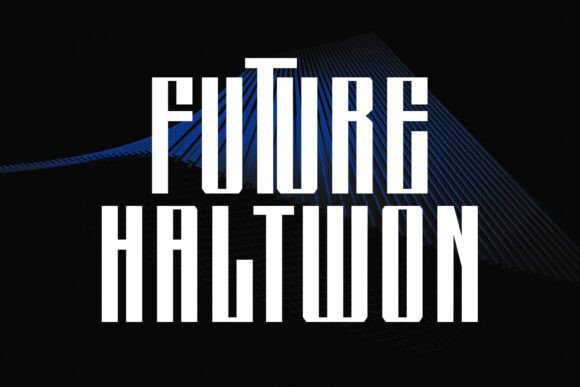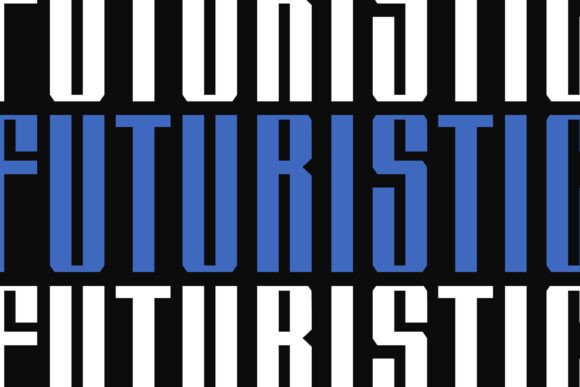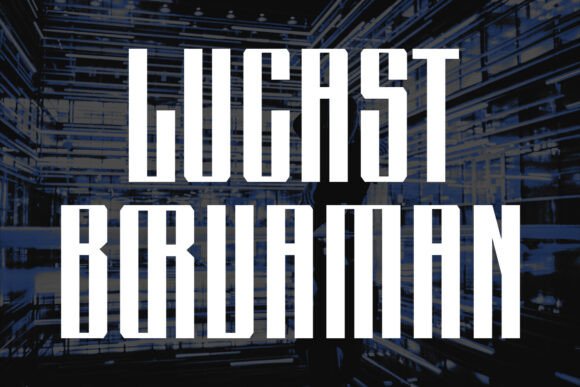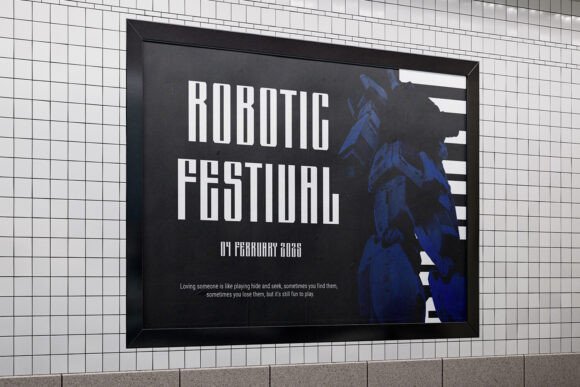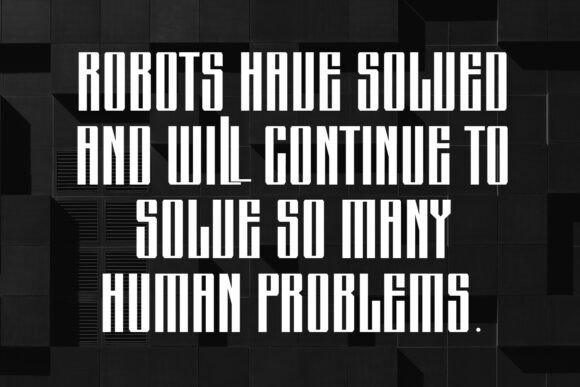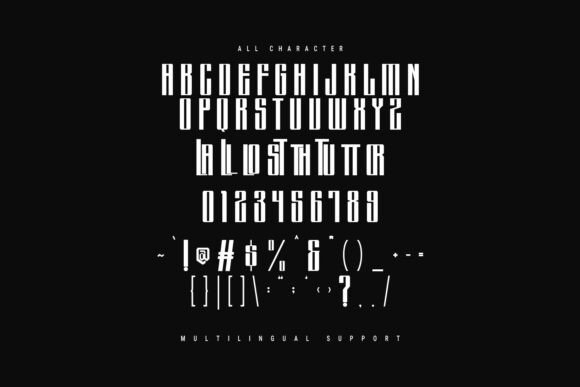
Introduction to Lockamor Font
As a designer, have you ever found yourself stuck on a project, searching for that one font that will elevate your design and make it truly stand out? I know I have. The moment of inspiration comes when you stumble upon a font that perfectly captures the essence of your creative vision. For me, that moment arrived when I discovered the Lockamor Font – a bold, futuristic display font that’s about to revolutionize the way we design.
With its sleek, modern aesthetic and geometric structure, Lockamor Font is the ultimate design resource for any creative project. Whether you’re working on a sci-fi project, tech branding, gaming designs, or high-impact logos, this font delivers a strong and commanding presence that’s hard to ignore. And the best part? It’s available for free download, making it an accessible and valuable asset for designers of all levels.
What sets Lockamor Font apart from other fonts is its versatility. From its high-quality design to its transparent background, this font is perfect for designers who want to create visually striking and impactful designs. With Lockamor Font, the possibilities are endless, and I’m excited to share its features and benefits with you in this article.
Key Features of Lockamor Font
- Unique and elegant design, making it perfect for branding, packaging, and advertising projects.
Honest Review: Lockamor Font
As a designer, I’m always on the lookout for high-quality design resources that can elevate my creative projects. Recently, I came across the Lockamor Font, and I was excited to give it a try.
Here’s what I think about this font:
- ✨ The Lockamor Font is beautifully designed, with a unique and elegant style that’s perfect for creative projects. I love the subtle curves and lines that give it a sophisticated feel.
- ⚠️ The font is only available in a limited number of weights, which might be a limitation for some designers who prefer a more extensive range of options.
- ⚠️ I also found the font to be a bit on the thicker side, which might not be suitable for all design projects.
Overall, I’m impressed with the Lockamor Font, and I think it’s a great addition to any designer’s toolkit. While it may have a few limitations, its unique style and high-quality design make it a valuable resource for creative projects.
Using Lockamor Font in Creative Projects
With its transparent background, Lockamor Font is ideal for creative projects that require a clean and minimalist design. Use it for logos, typography, and text-based designs. Tips for getting the most out of Lockamor Font include experimenting with font sizes, colors, and combinations to create unique and visually appealing designs.
Lockamor Font is commonly used in branding, marketing materials, and digital products. Its versatility makes it suitable for a wide range of creative projects, from business cards to social media graphics.